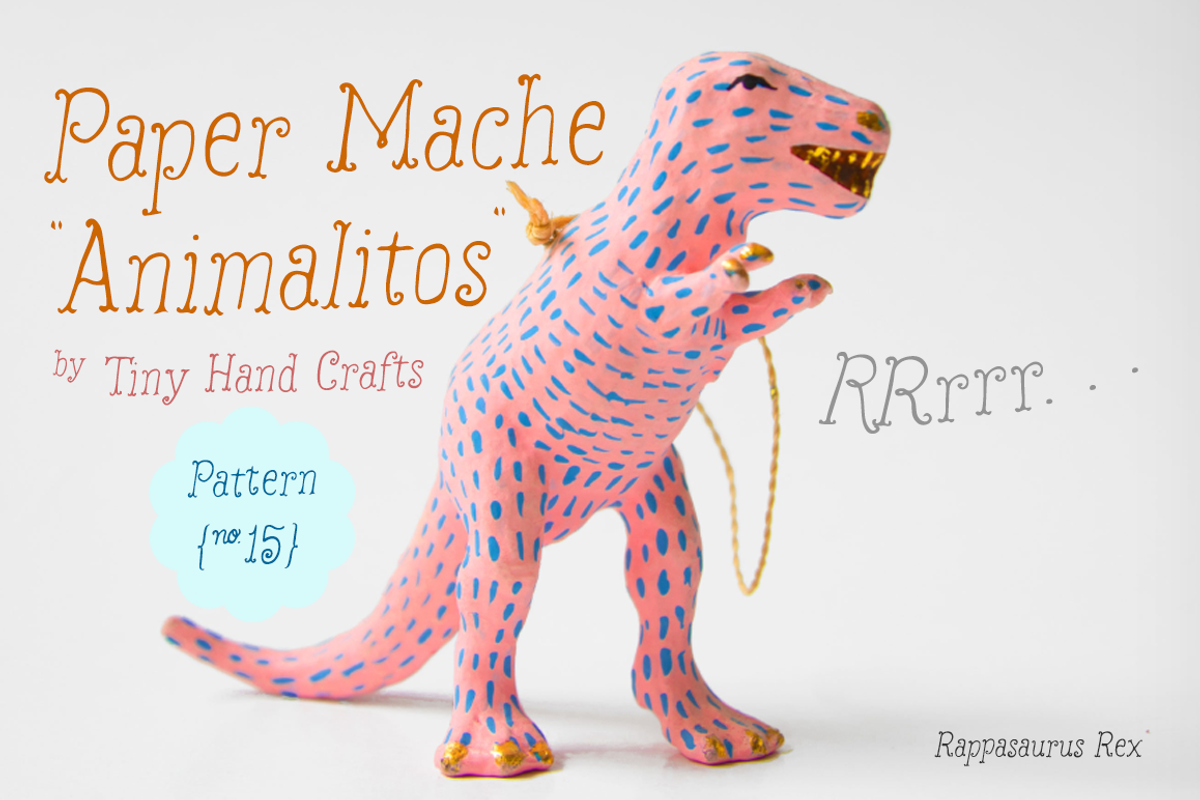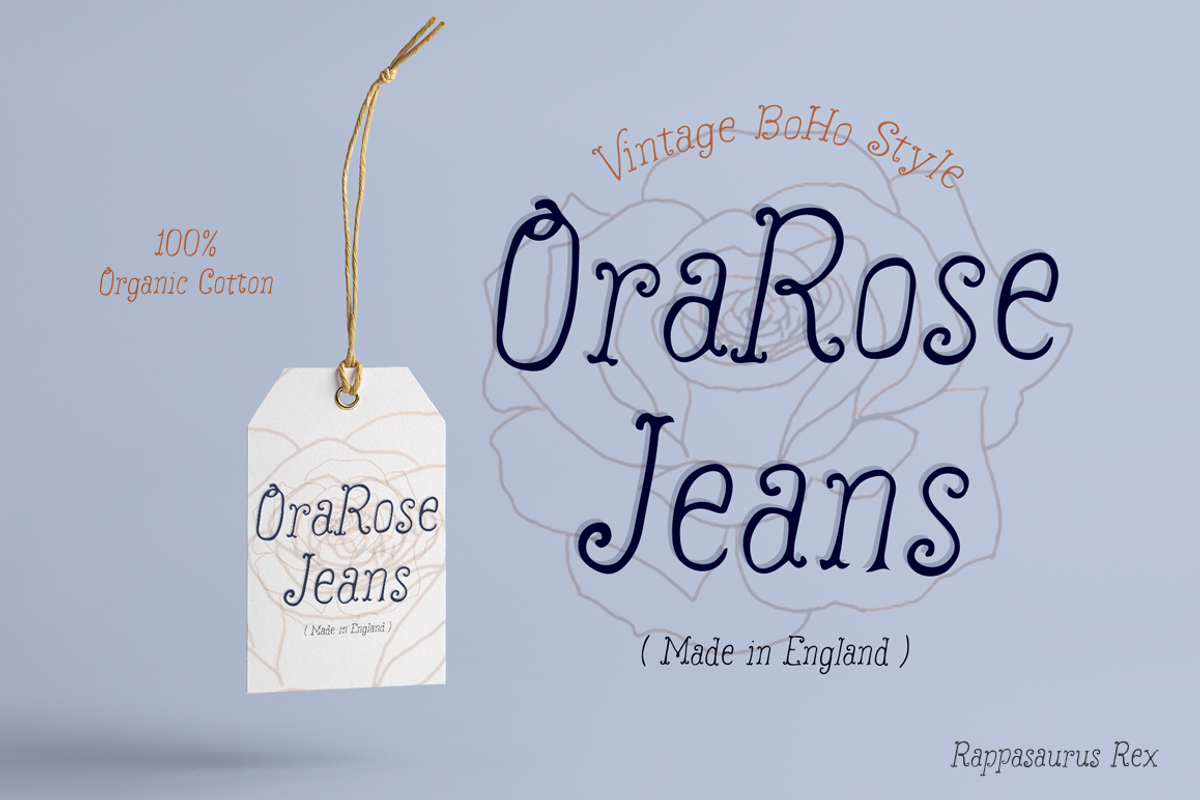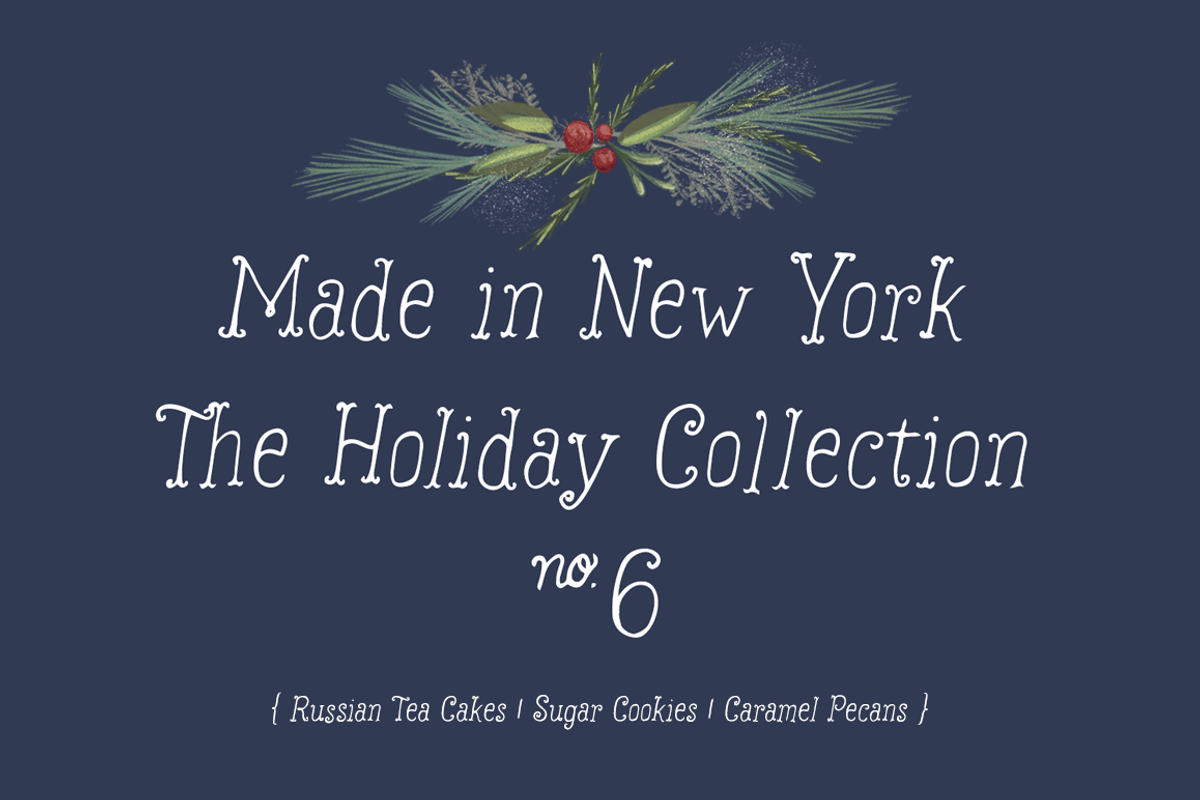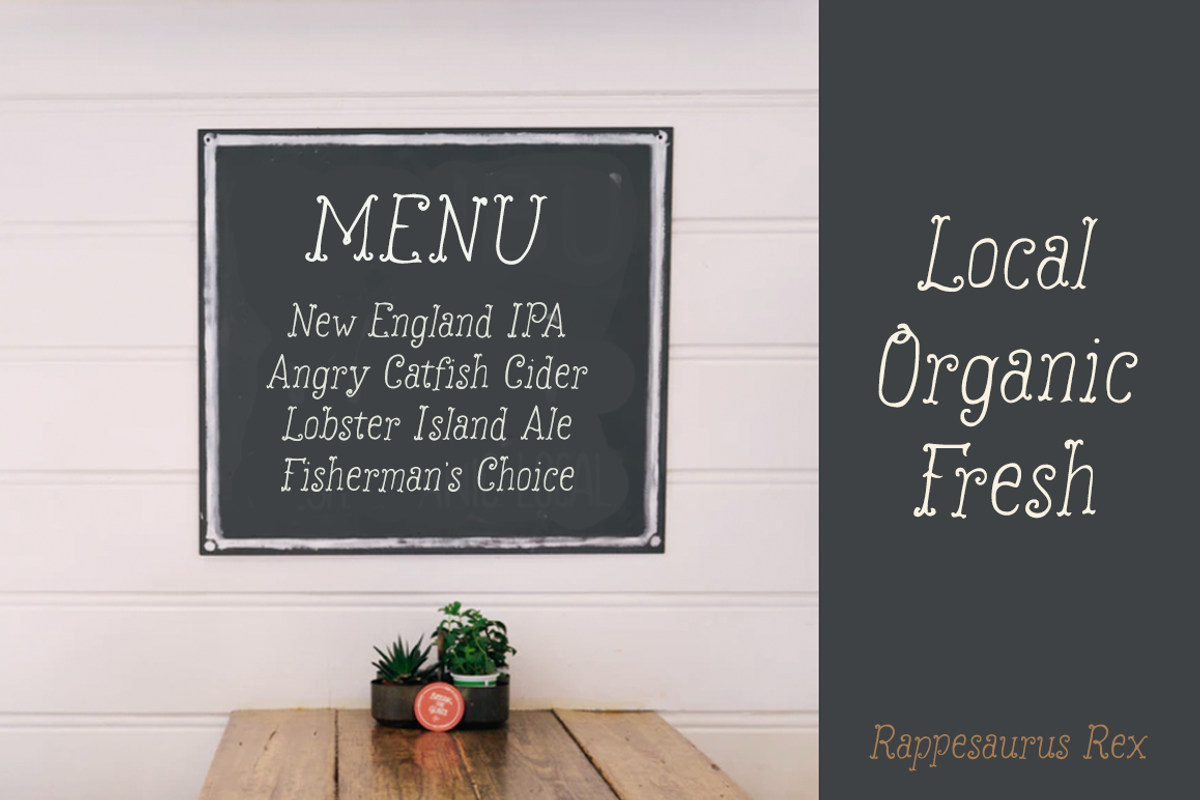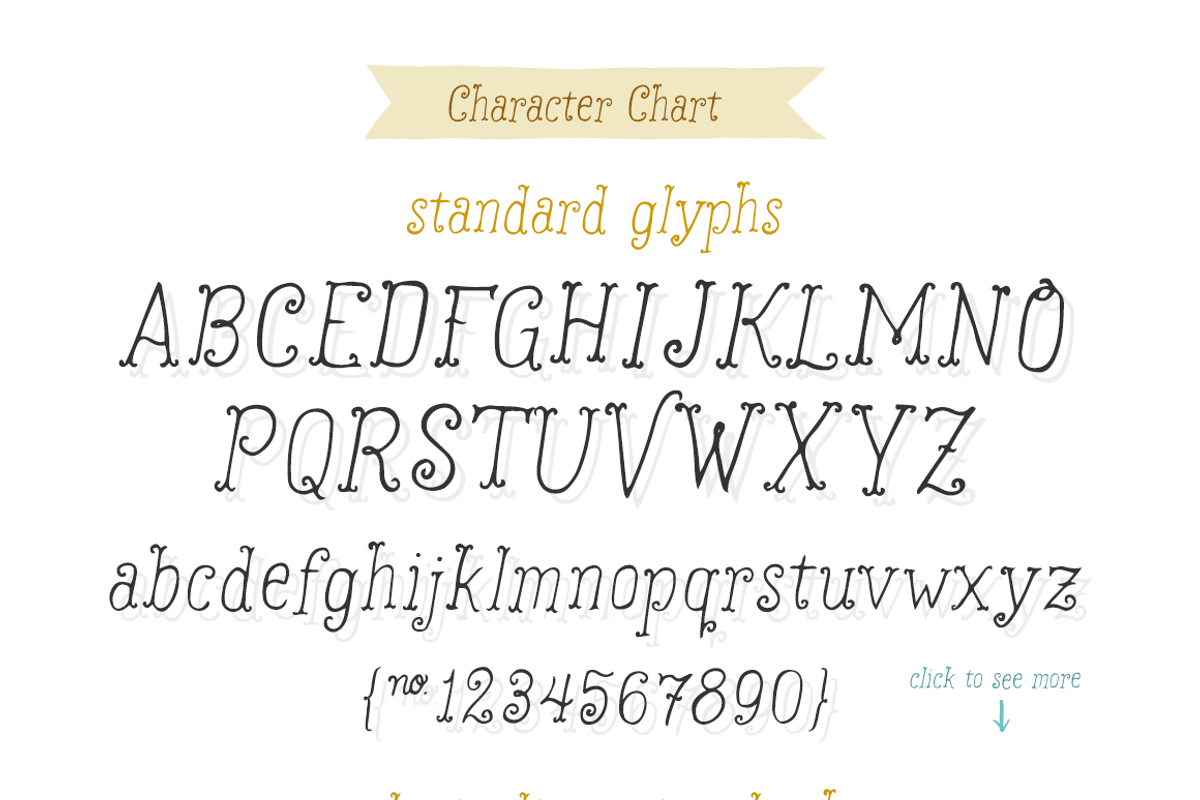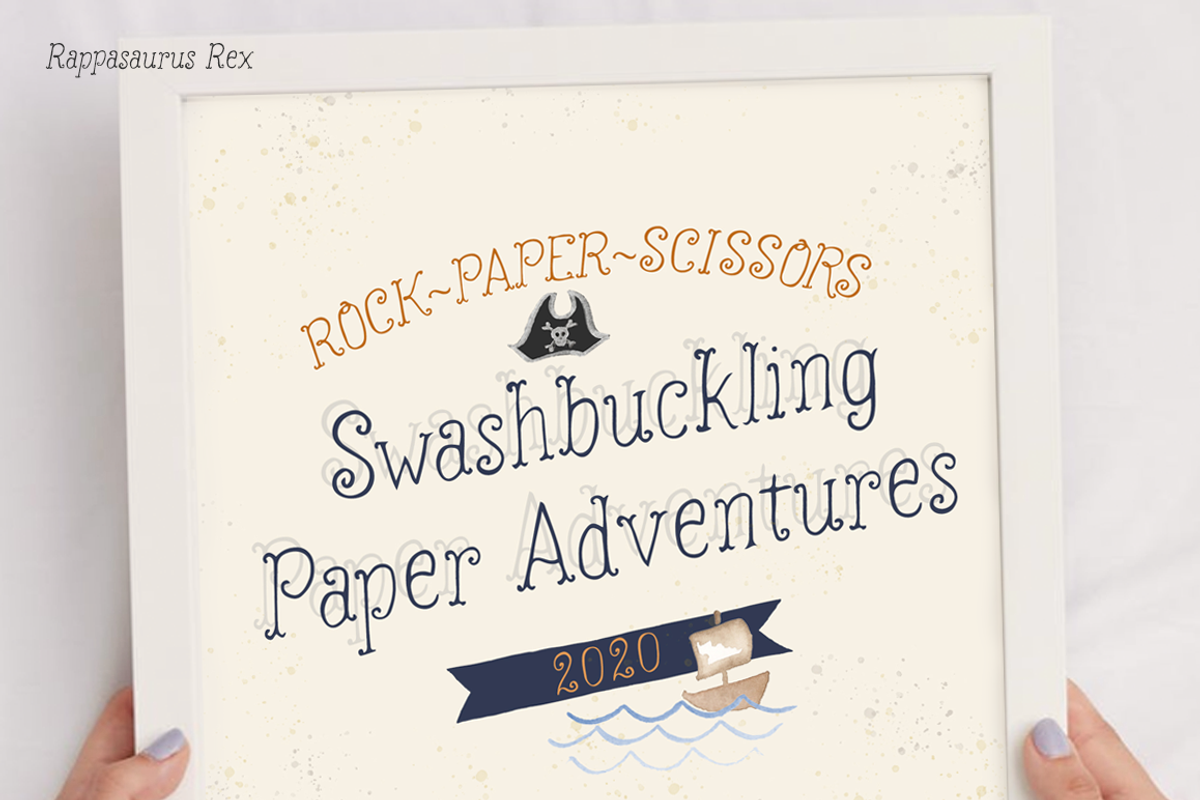
Rappesaurus Rex Display Font
Meet Rappesaurus Rex!
A handsome handlettered font who loves to explore the world, share crafty stories and weave delightful wonders. He easily replicates handdrawn lettering with irregular line weights and automatic ligatures. I imagine him happily placed in children's books, illustration projects and fun logos, show me what you can do!